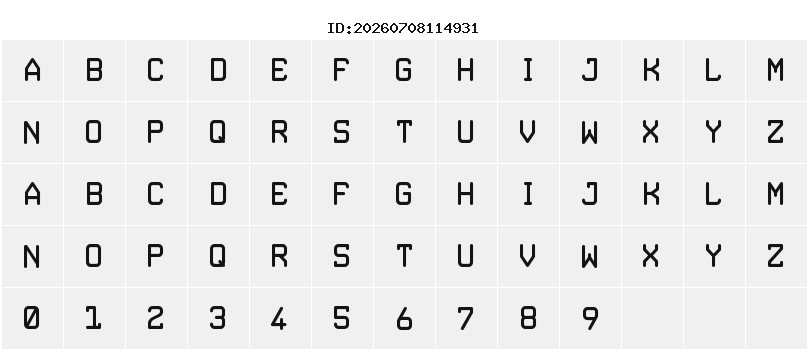
About DYLOVA5TUFF.ttf
DYLOVA5TUFF.ttf is a modern, elegant sans-serif font designed for ultimate readability and visual harmony. Perfect for branding, headlines, web design, and print materials.